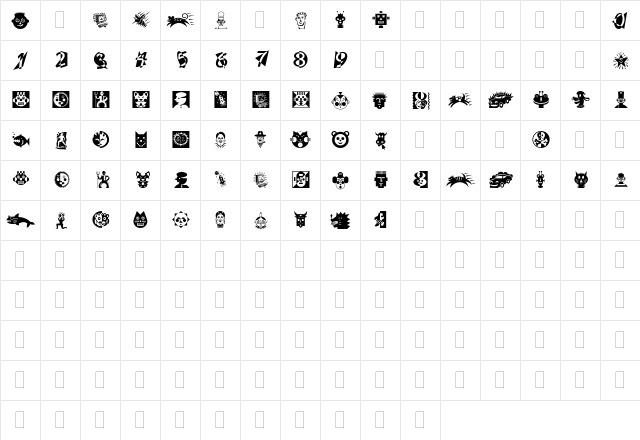
DfAttitudesPlain Regular
Design Context for DfAttitudesPlain Typeface
DfAttitudesPlain is a composed and adaptable typeface that performs quietly and consistently across a wide range of design contexts.